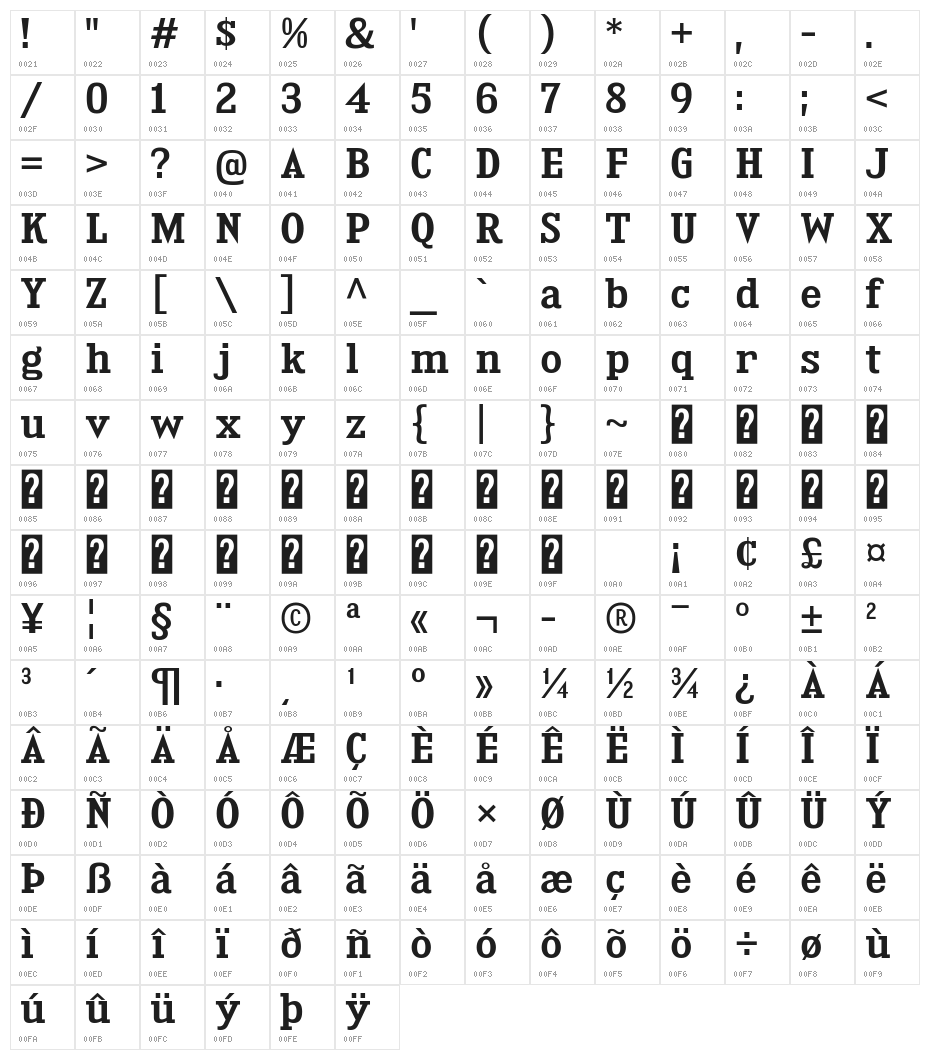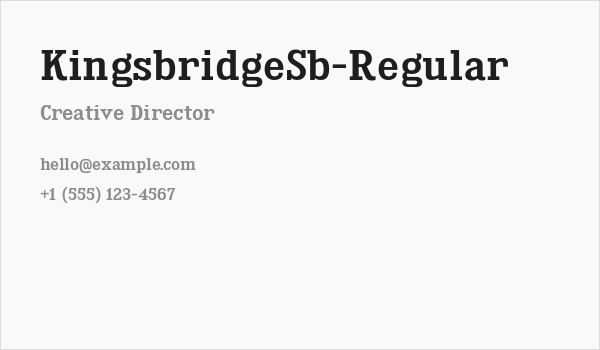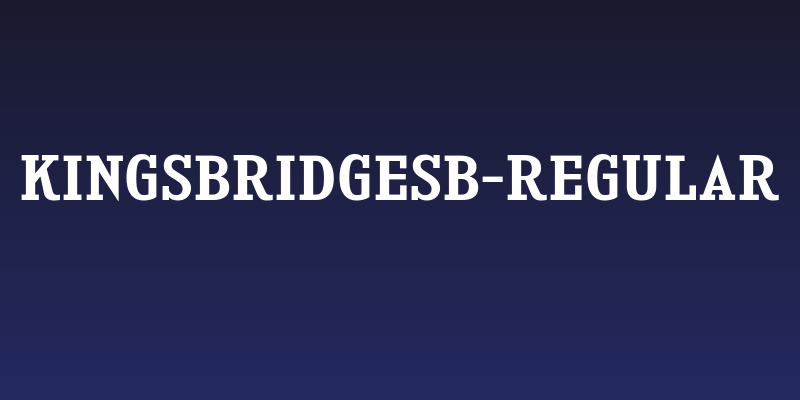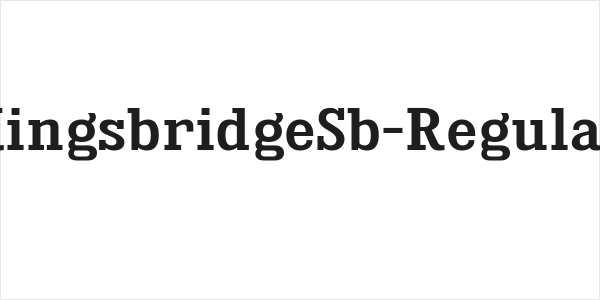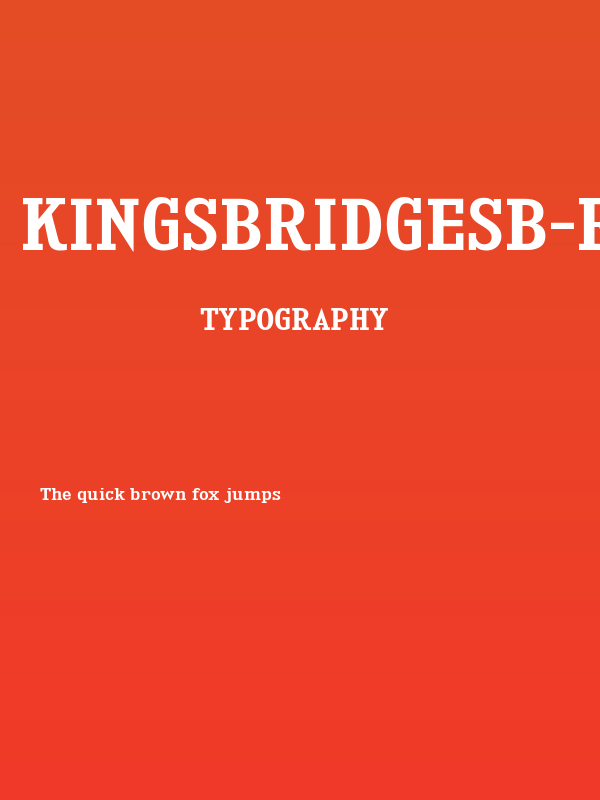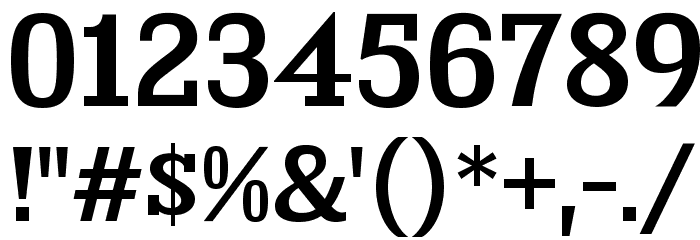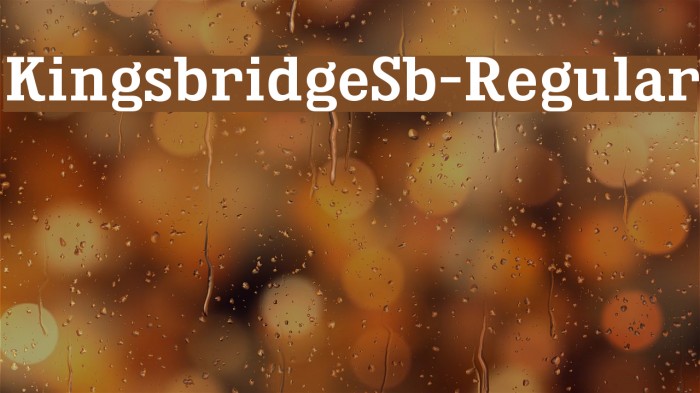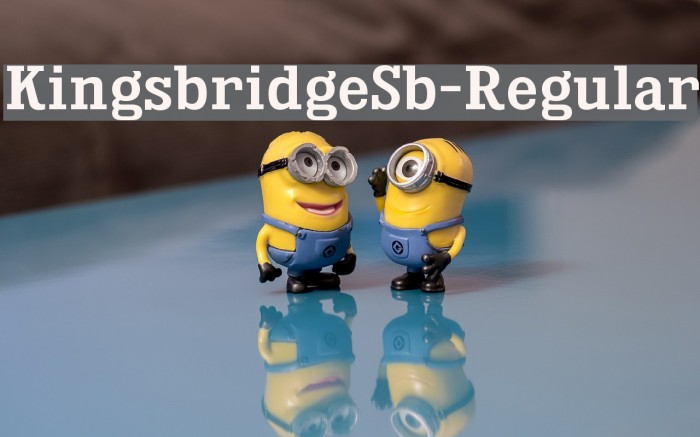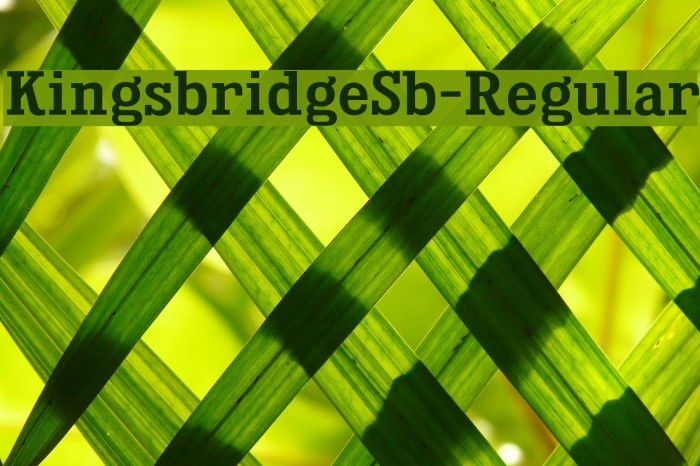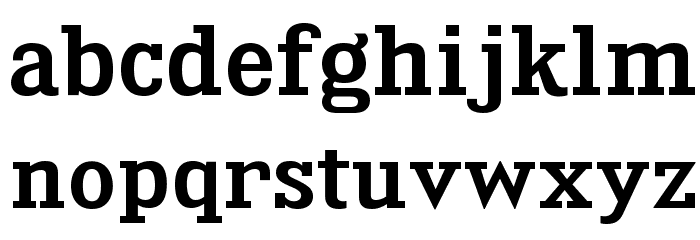
KingsbridgeSb-Regular Font
KingsbridgeSb-Regular Description
This font exhibits a robust and authoritative presence with its bold, slab serif design. The characters are well-defined with strong vertical and horizontal strokes, giving it a commanding appearance. The serifs are pronounced, adding a touch of traditional elegance while maintaining a modern edge. The uppercase letters are tall and imposing, while the lowercase letters are slightly more compact, providing a balanced contrast. Numbers are clear and legible, making them suitable for various applications. The special characters are consistent with the overall style, ensuring uniformity across all text elements.
| Proposed Projects | Ideal for headlines, posters, branding projects, and any design requiring a bold statement. |